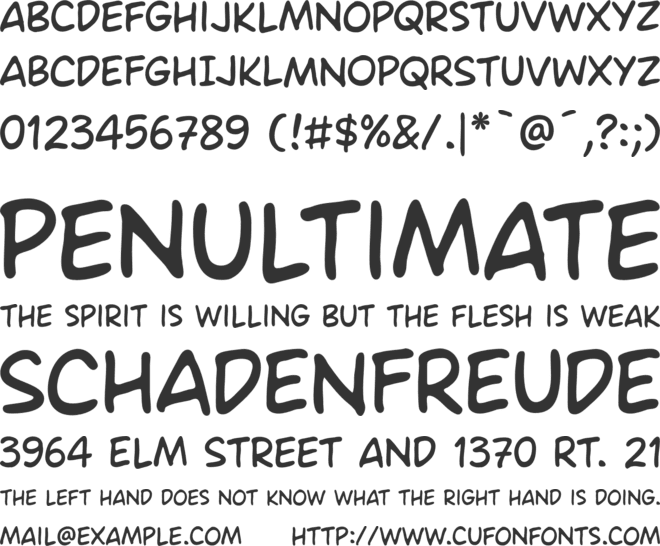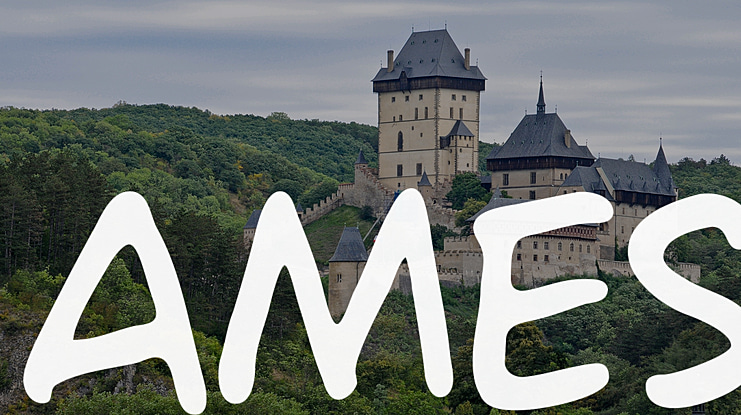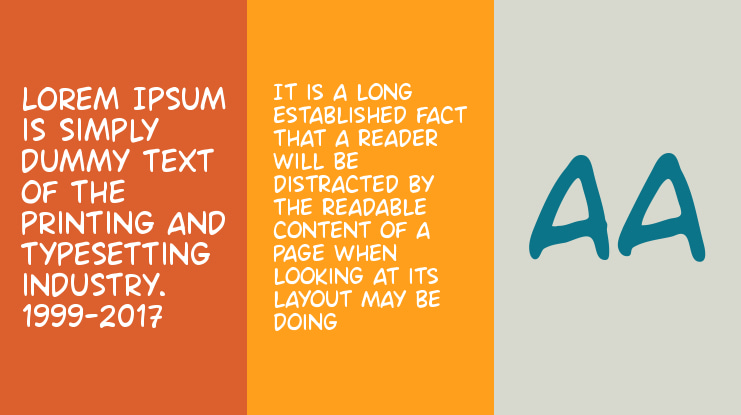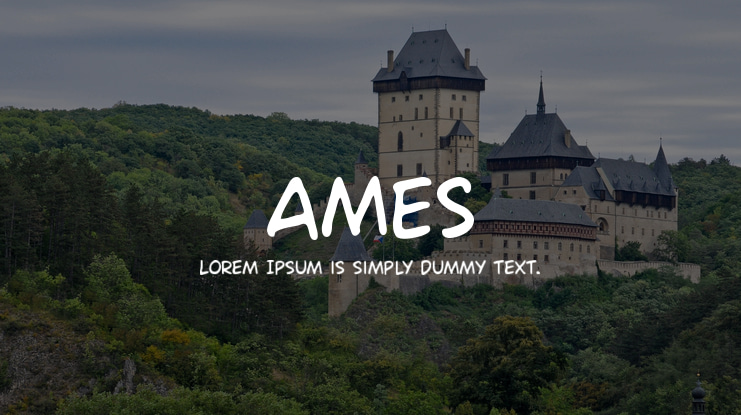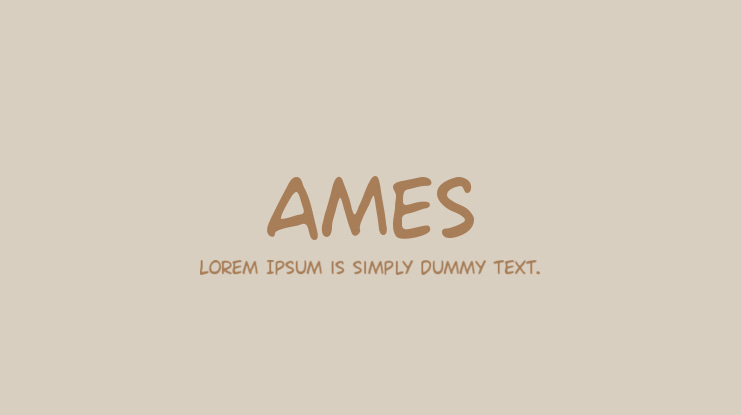
Ames Font
Ames is a freeware comic book lettering font for independent comic creation and non-profit use only. See more information and the license agreement here: http://purastik.net/ames/e.html